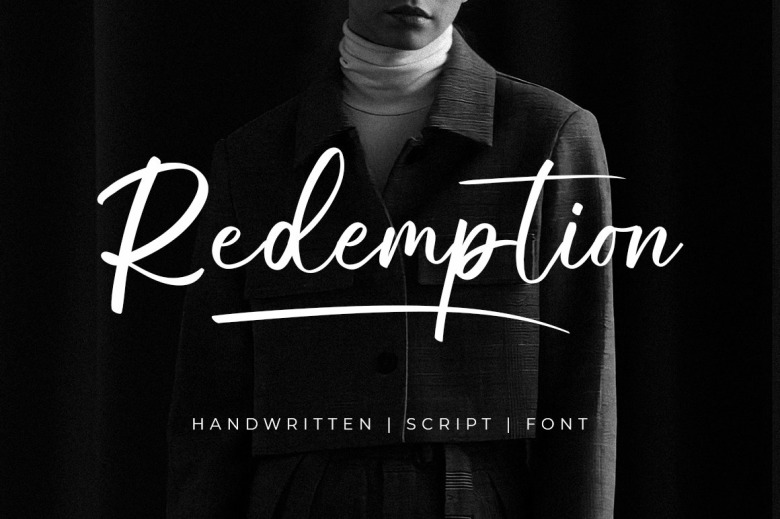
Redemption Font
Redemption Script is an elegant and casual handwritten font. It’s a classy font that will be beautiful on so many design things. It will bring a smile to every project!
This font is suitable for branding, promotion, or quotes made of risk-taking. Work on business branding, fashion designs and you can also apply this to your Quote typography project, Magazine covers signature logotype watermarks social media posts & any more!
Redemption Handwritten Script Font